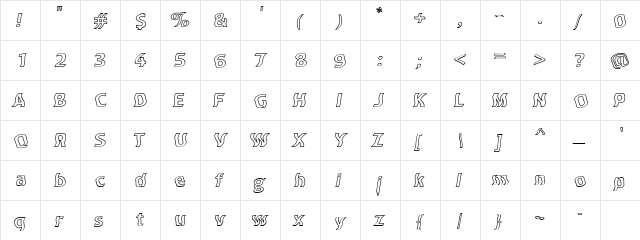
Dross03HollowSlanted Regular
Design Context for Dross03HollowSlanted Typeface
Dross03HollowSlanted takes a measured approach to typography — its balanced proportions and neutral character make it a reliable workhorse for both digital and print work. The slanted form adds forward momentum and visual energy.
Pro Tip: Try Dross03HollowSlanted for annotation and caption copy alongside an upright companion — the contrast in angle creates a dynamic but ordered typographic system.